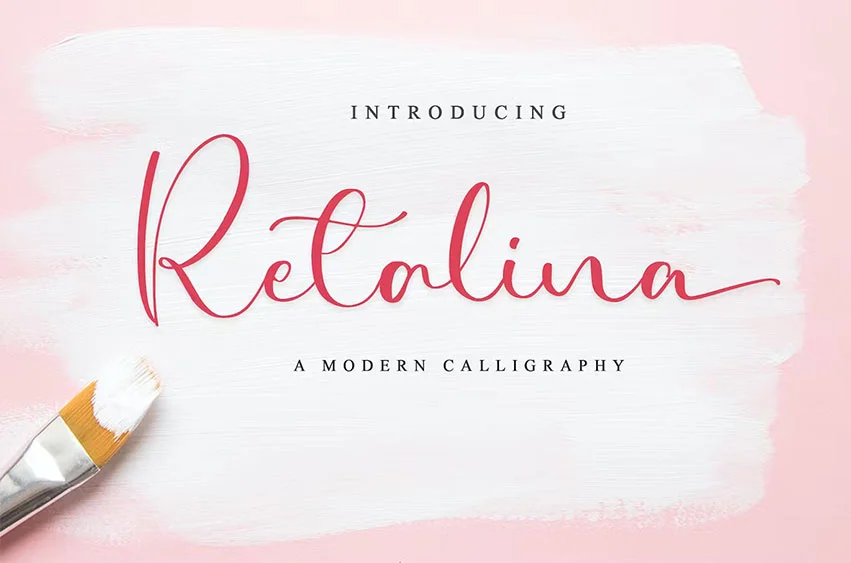
Retalina Font Wedding Font is a beautiful light handwritten font with a unique feel and a stunning impact. It will add a luxury spark to any design project that you wish to create!
- Modern Calligraphy Font
- Beautiful Swash (Ending tail)
- Beautiful Titling (Beginning tail)
- Special Ligatures
Retalina Font Preview